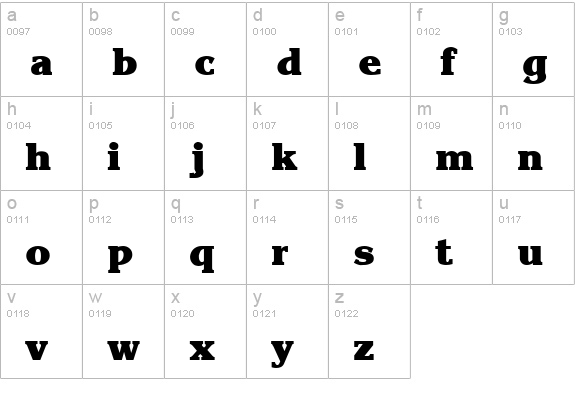
Krone ExtraBold is an extra-heavy, attention-grabbing variant in the Krone typeface family \xE2\x80\x94 well suited to high-impact headlines, posters, and bold branding.
Krone ExtraBold is a striking and powerful font that demands attention with its bold weight and strong presence. Perfect for making a statement or creating eye-catching designs, this font exudes confidence and modernity. Its thick strokes and clean lines give it a contemporary edge that is sure to impress. What makes Krone ExtraBold even more appealing is that it is available for free download at FontsMarket.com. This means that you can easily access this versatile font and use it in your projects without any cost. Whether you're designing posters, logos, or website headers, Krone ExtraBold will add a touch of boldness and sophistication to your work. Download it now and elevate your designs with this exceptional typeface.